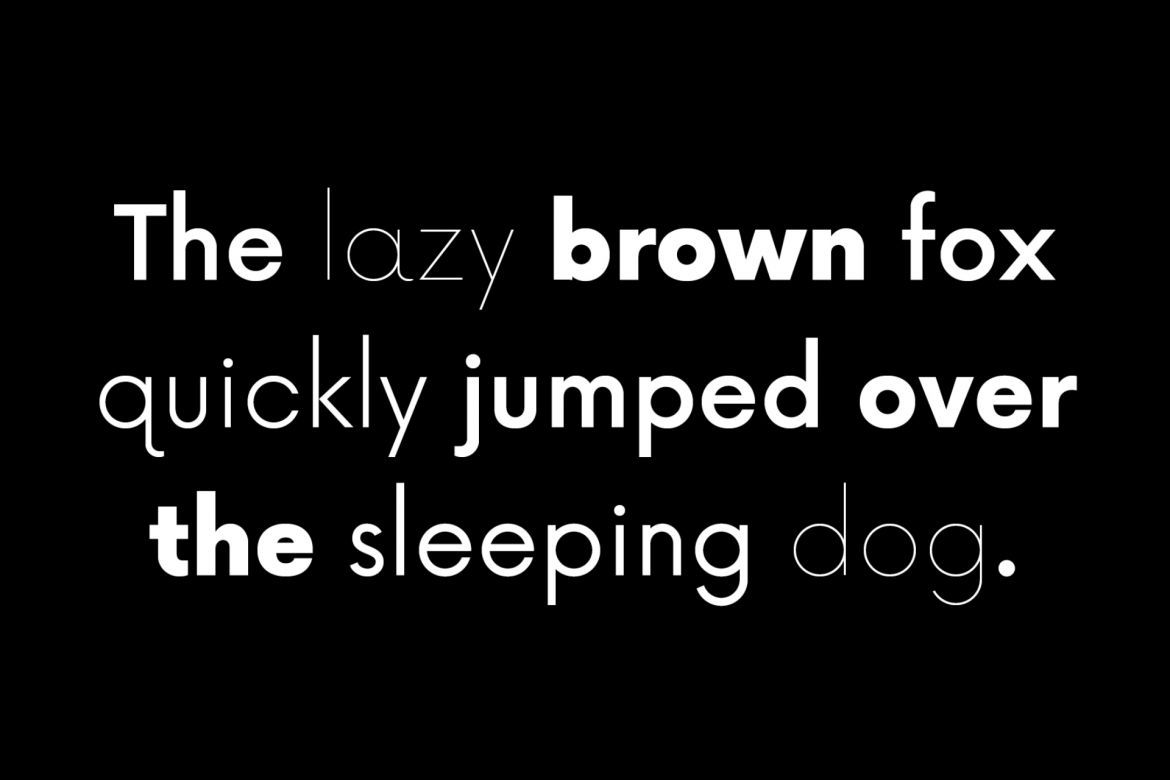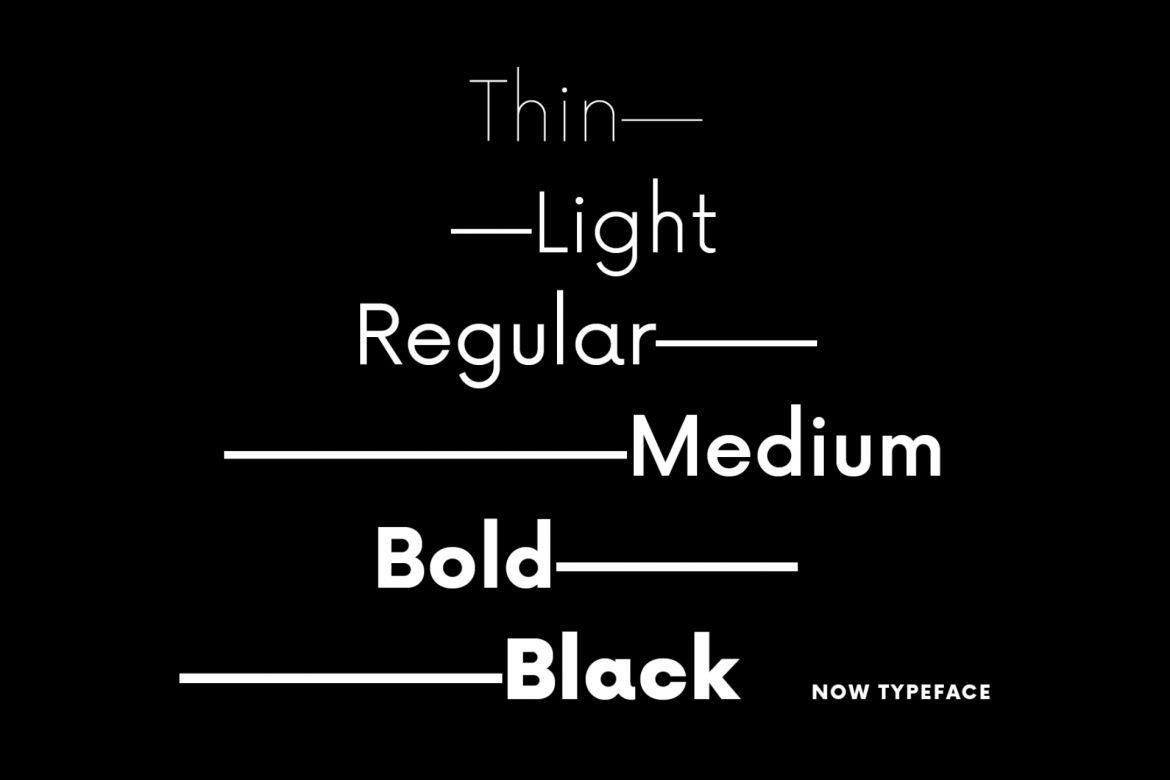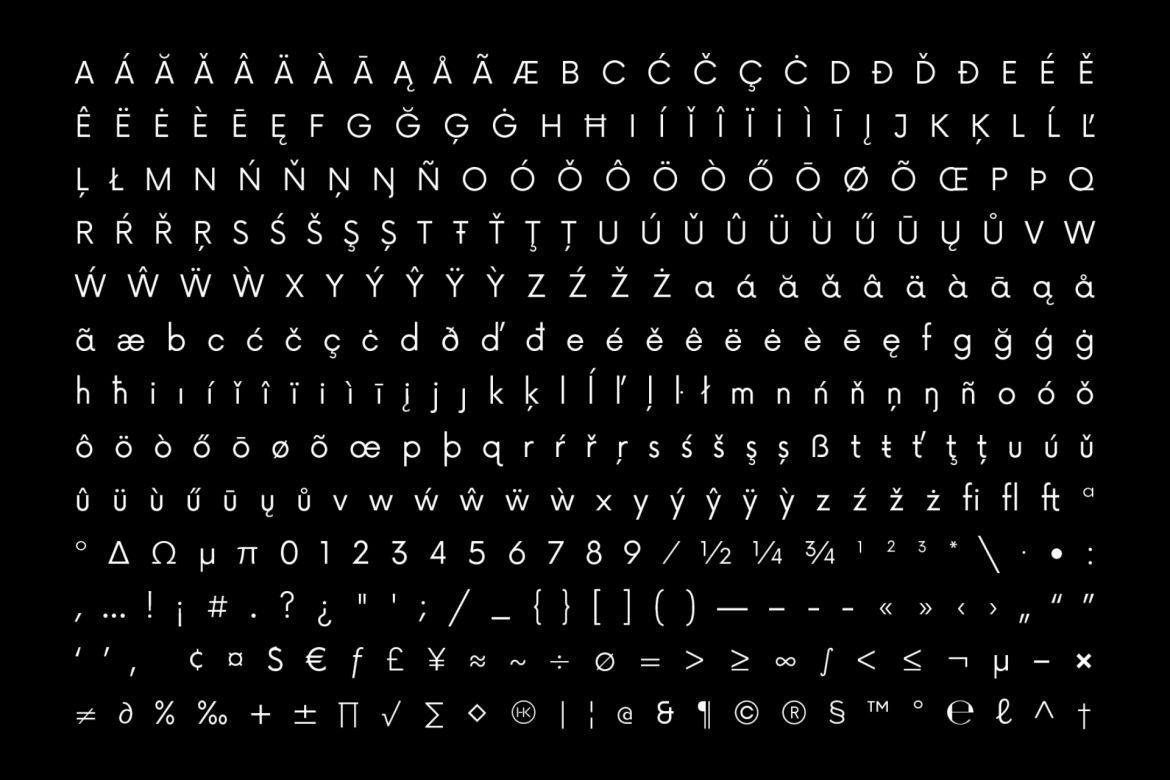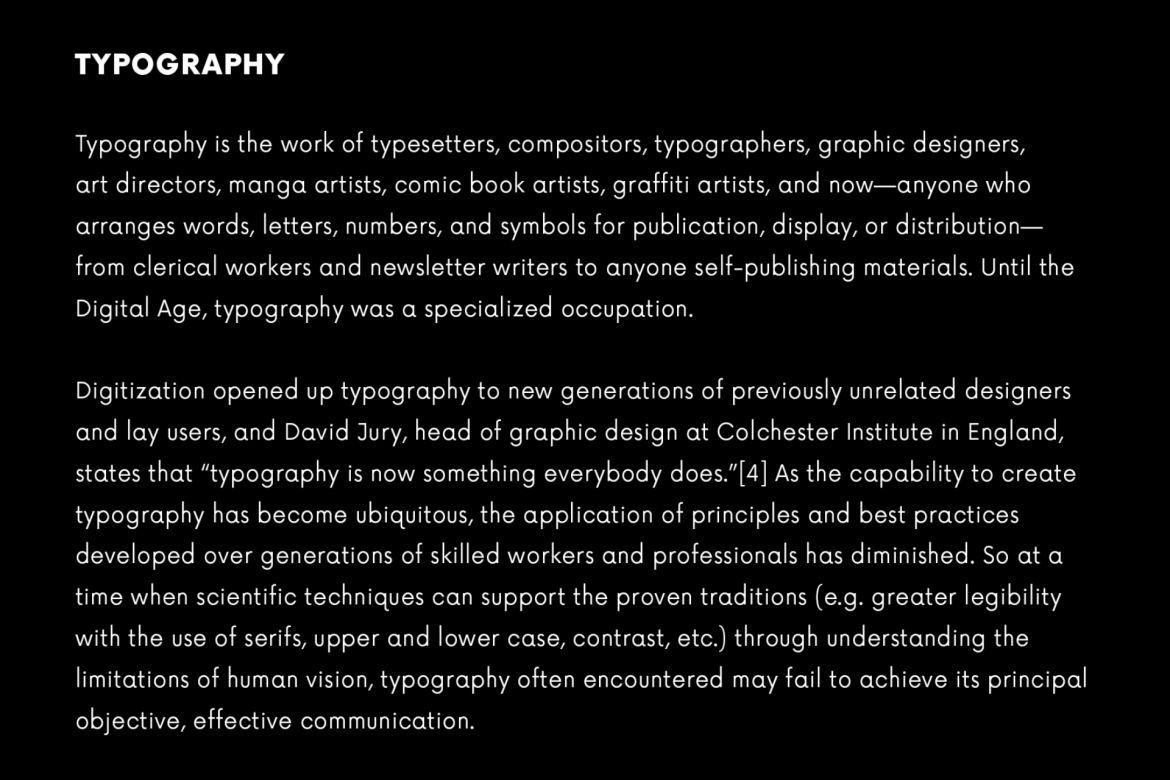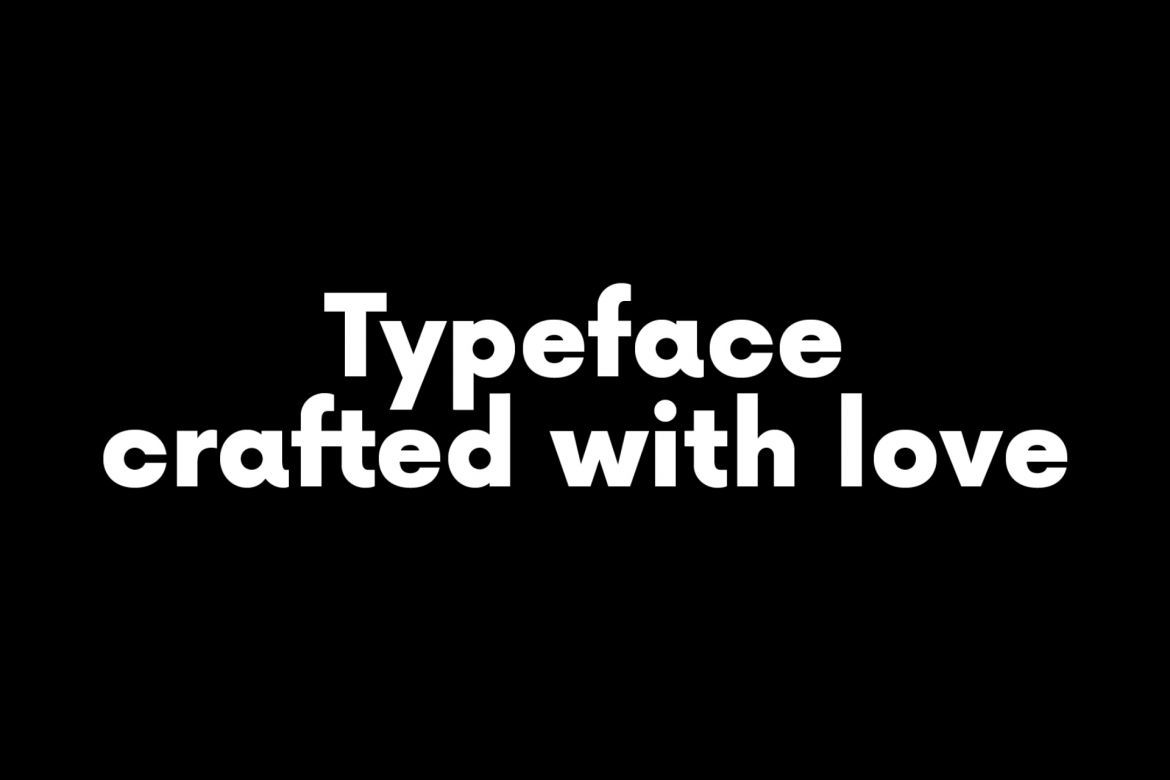
NOW Typeface - 9 FREE Fonts
Now Typeface is a geometric and low contrast typeface with a bit of character. It contains six styles which can combine together to give a wonderful look to your design.
• clean and geometric which will work great on wide range of projects like signages, text face of books and magazines
• open source sans serif typeface